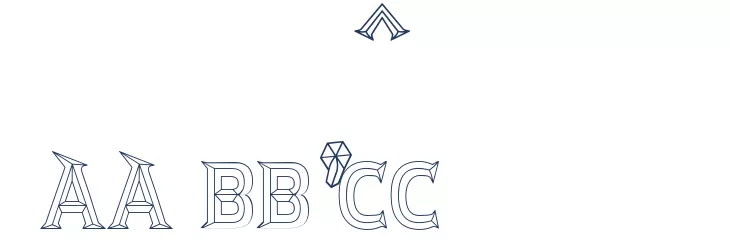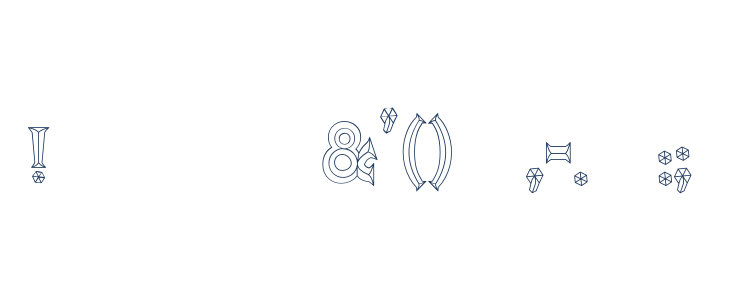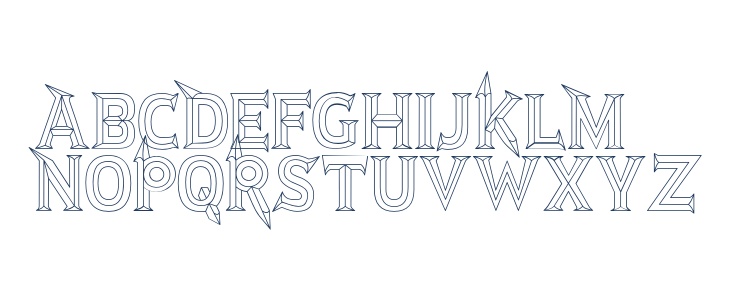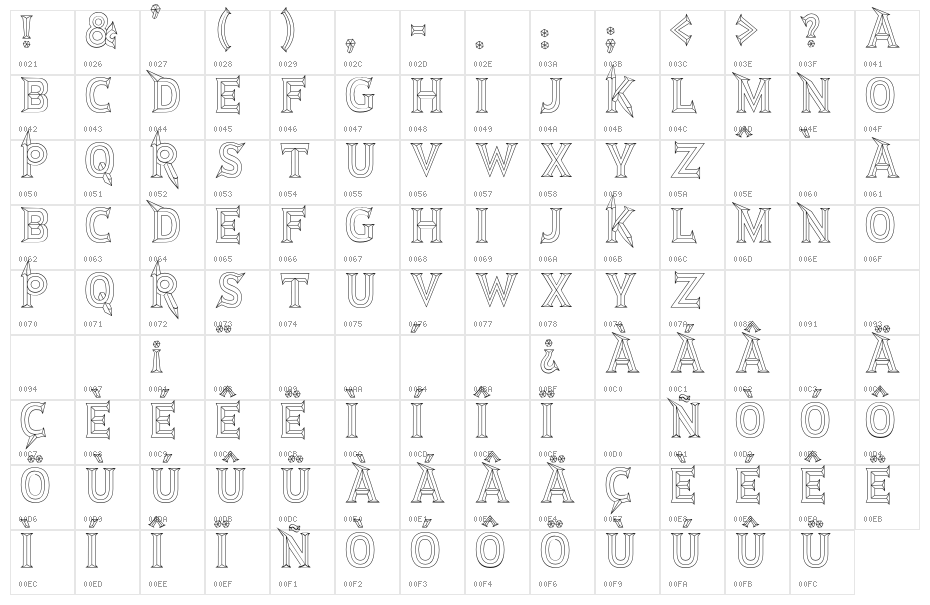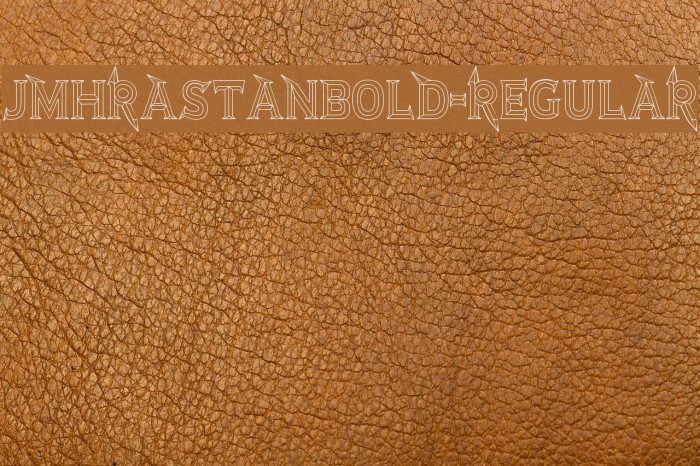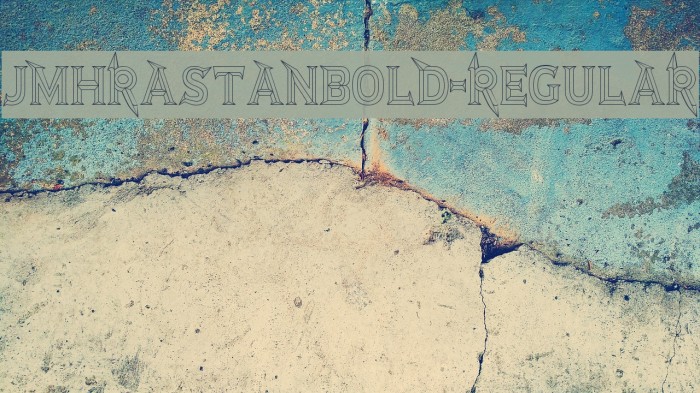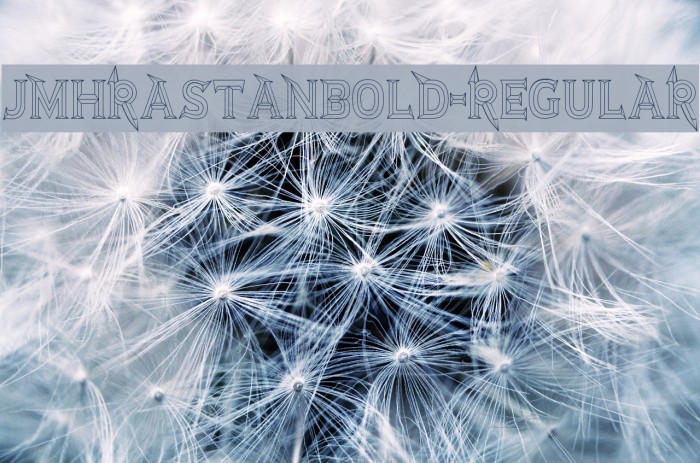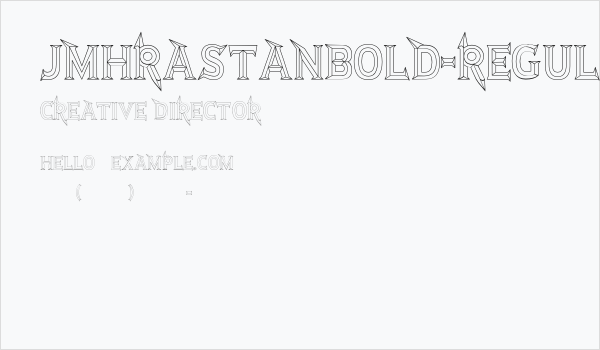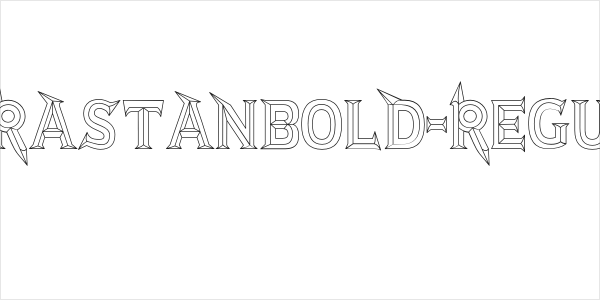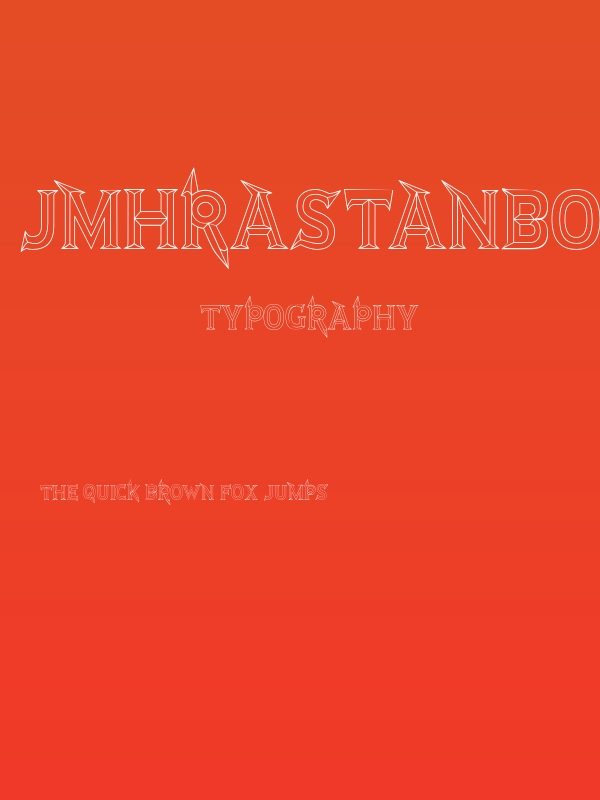
JMHRastanBold-Regular Font
JMHRastanBold-Regular Description
This font features a bold, decorative style with intricate details that give it a unique and striking appearance. The letters are characterized by sharp, angular edges and a three-dimensional effect, making them stand out prominently. The uppercase and lowercase letters maintain a consistent design, with the uppercase being slightly more elaborate. The numbers and special characters follow the same ornate style, ensuring a cohesive look across all characters. This font is ideal for projects that require a bold statement or a touch of fantasy and adventure.
| Proposed Projects | Ideal for video game titles, fantasy book covers, posters, and branding that requires a bold and adventurous look. |